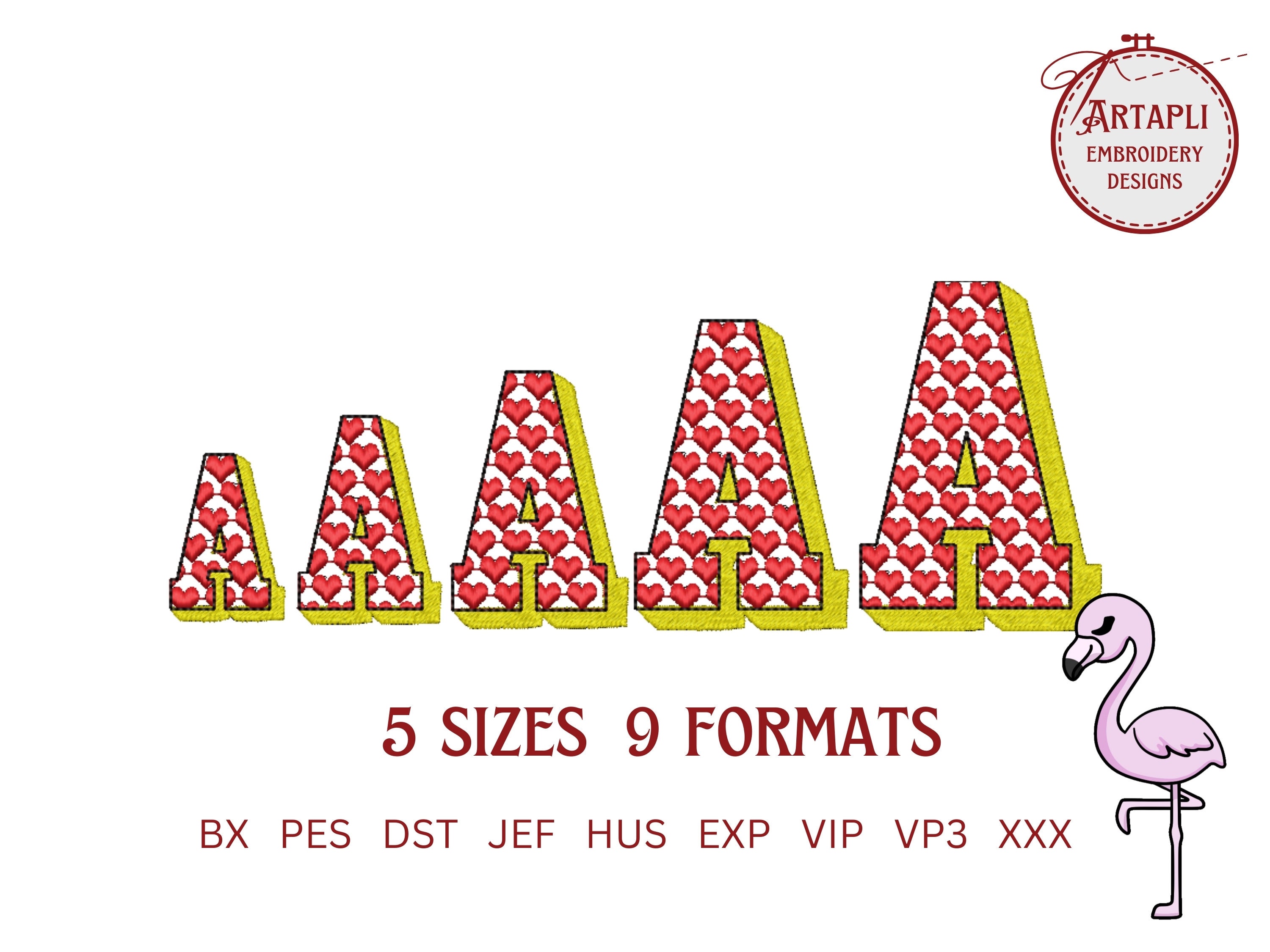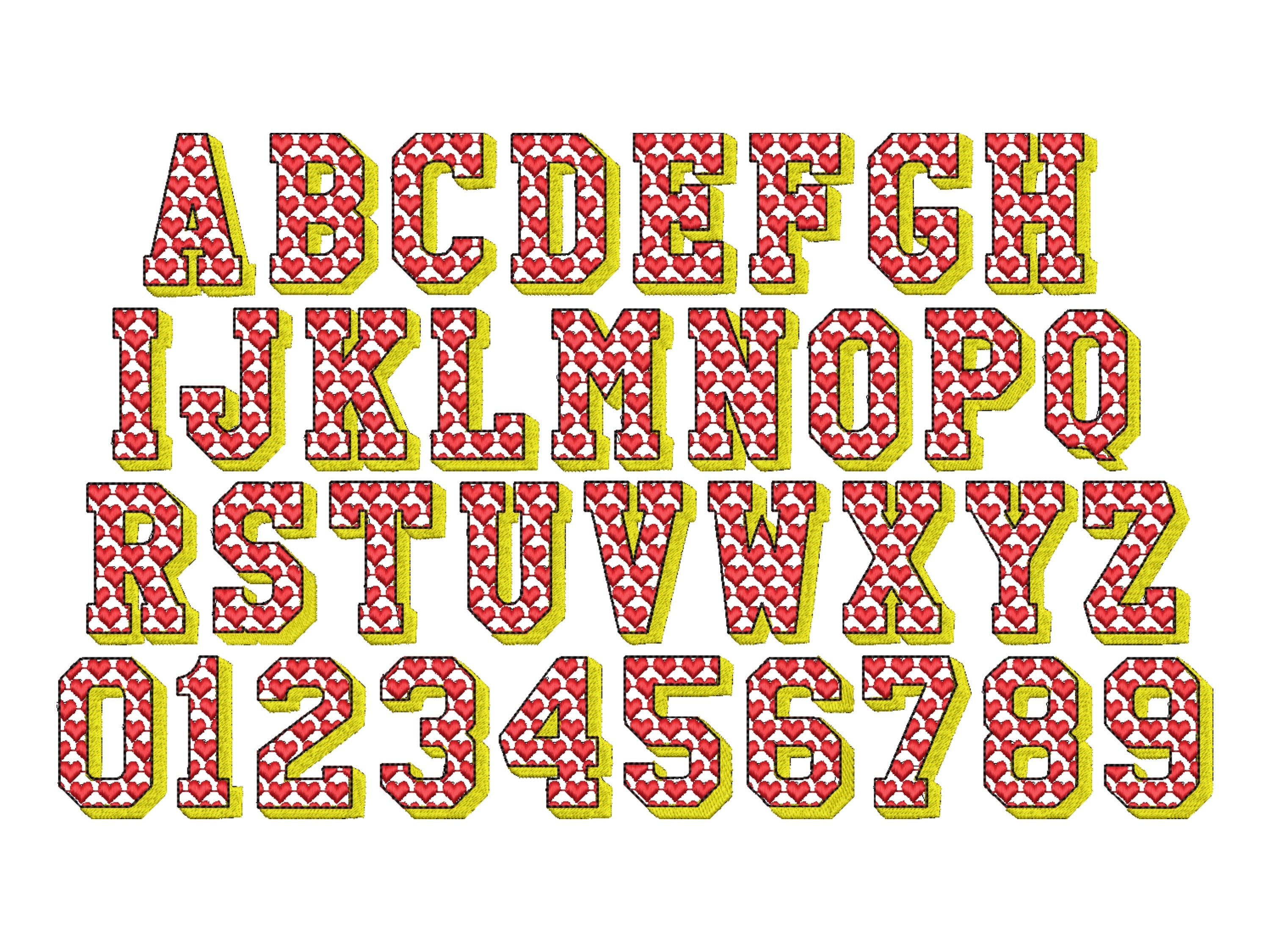
Famous Shadow Patterned Font Hearted add on Hearts alphabet letters & numbers machine embroidery design great combine and merge
The fonts are transparent and have fill stitch or satin stitch pattern inside, fill stitch shadow, and a light bean stitch outline.
Each font contains uppercase A-Z and numbers 0-9.